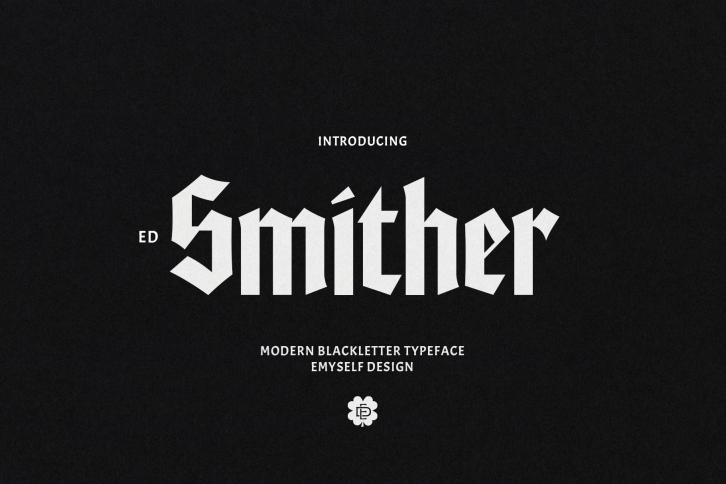
ED Smither is a gorgeous font that was realeased on August 29, 2022. The font can be used in many style contexts and design environments. Perfect for invitations, magazines, websites, logos, and more! It was designed by Emyself design and the file size is 11.55 MB. Thanks for checking out this font!